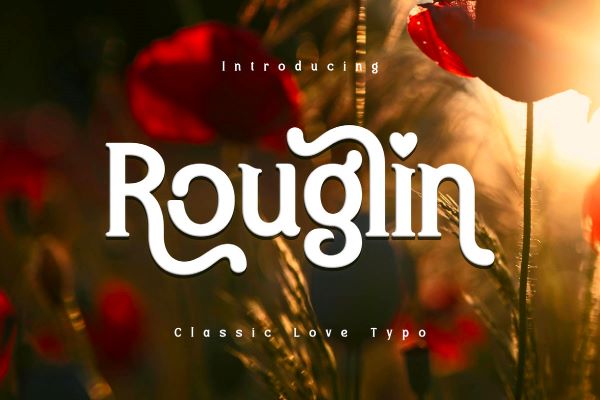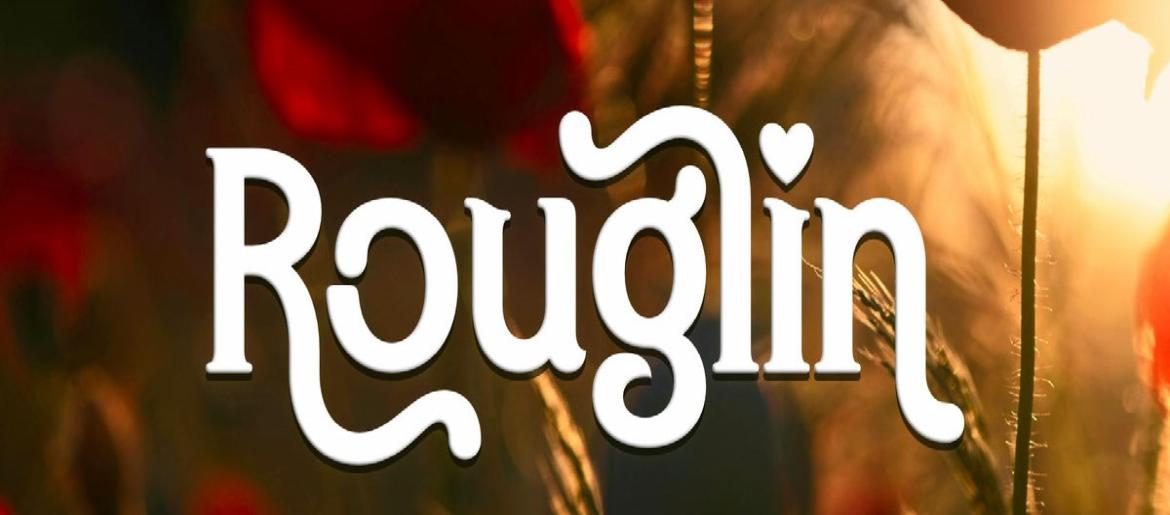
Rouglin Font
Rouglin by Authen Type is a romantic and classic display typeface designed with love — quite literally. Its flowing curves and delicate heart-inspired accents give it a warmth and intimacy that most display fonts simply cannot manufacture. Poised, elegant, and unmistakably feminine without being clichéd, it brings a genuine sense of sophistication and charm to wedding invitations, love letters, lifestyle branding, editorial features, and any project where elegance and emotional resonance are the brief. A free version is available for personal and commercial use.